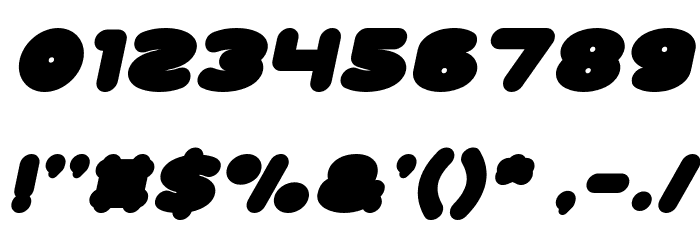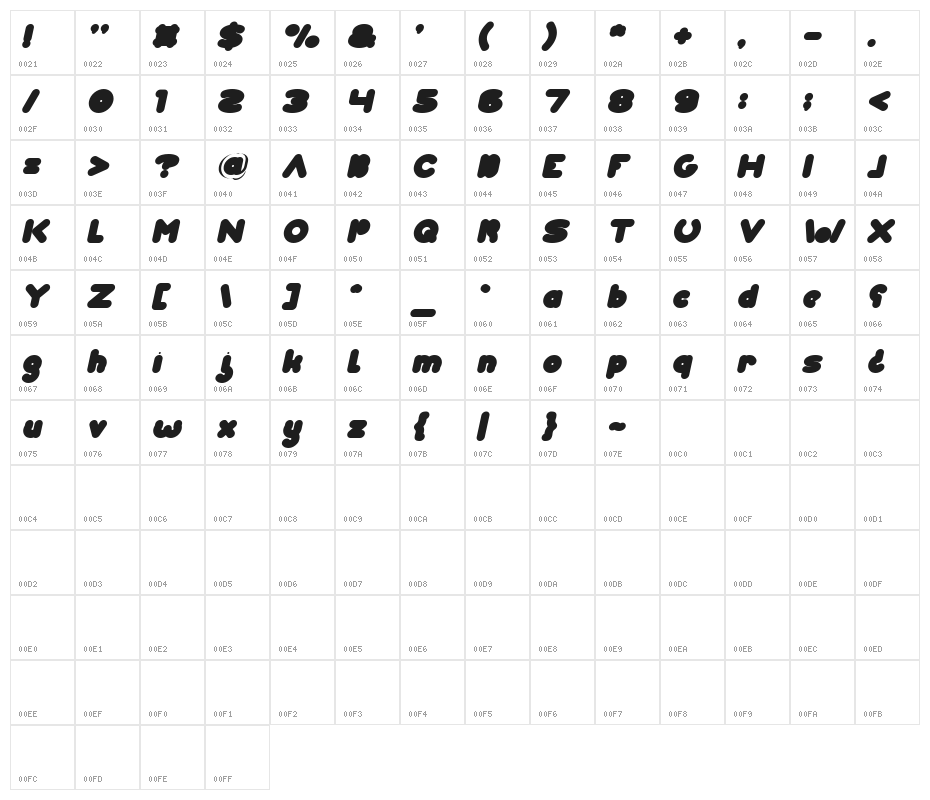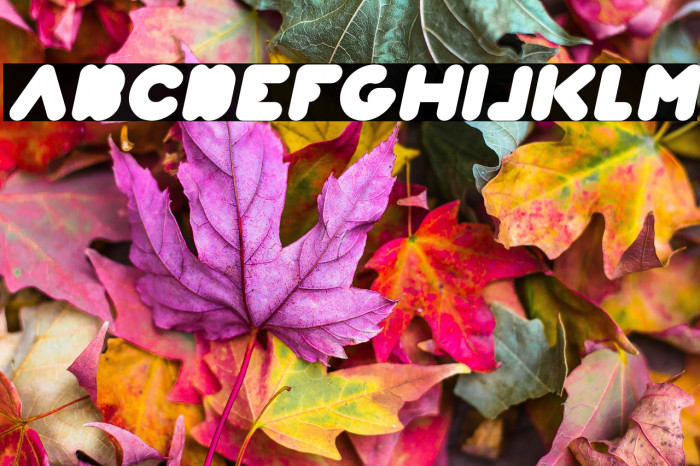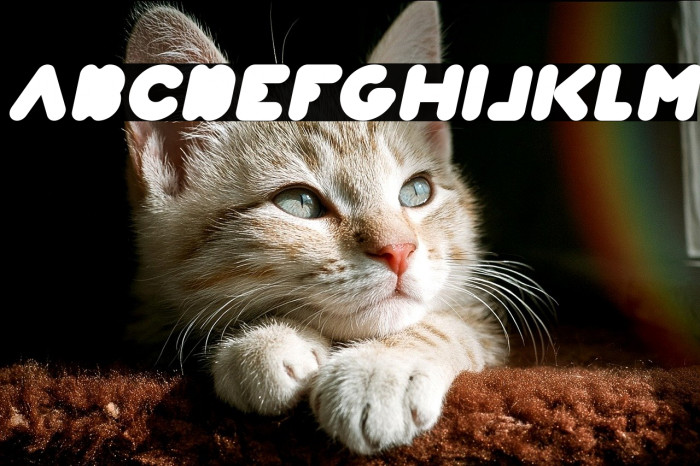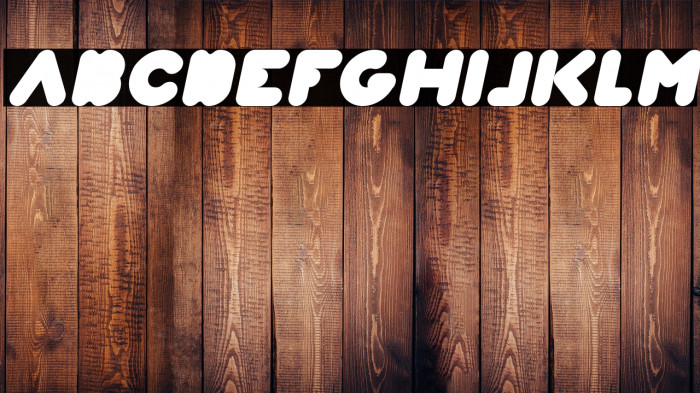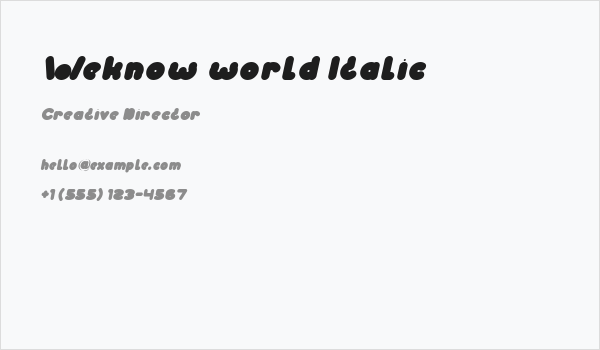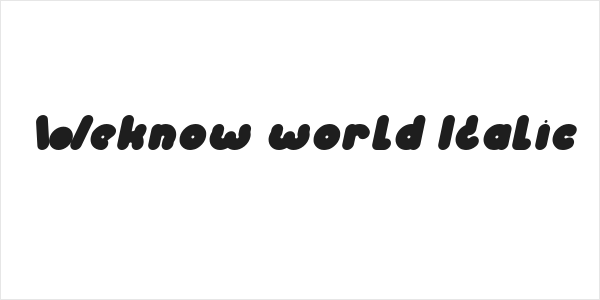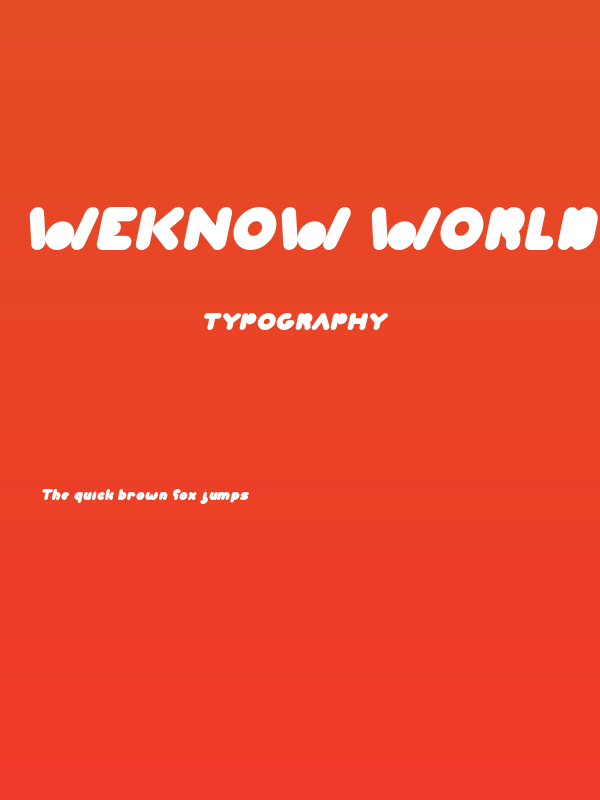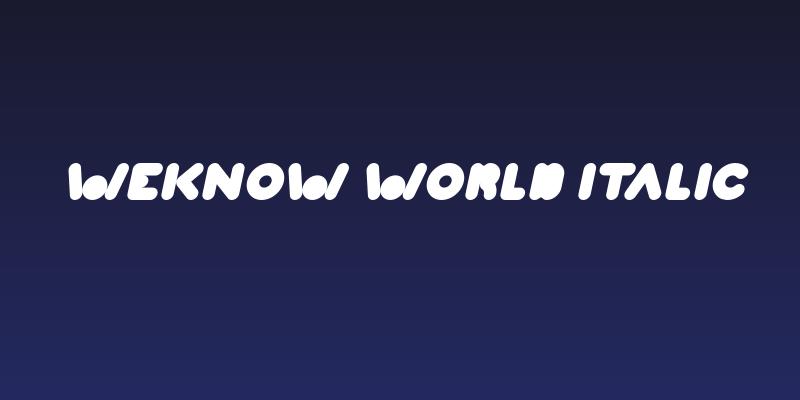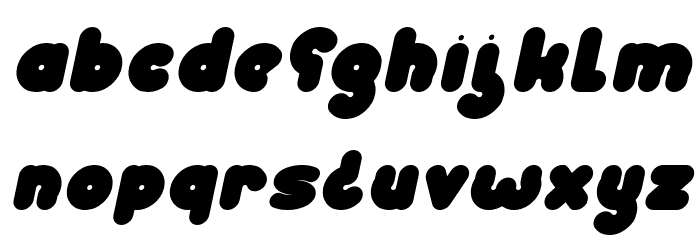
Weknow world Italic Font
Weknow world Italic Description
This playful and bold typeface features rounded, bubble-like characters that convey a sense of fun and creativity. The letters are thick and slightly italicized, giving them a dynamic and lively appearance. The font maintains a consistent weight throughout, with smooth curves and a uniform stroke width. Its unique style makes it stand out, perfect for projects that require a touch of whimsy and boldness. The numbers and special characters follow the same playful design, ensuring a cohesive look across all text elements.
| Overall Style | Playful, Fun, Creative |